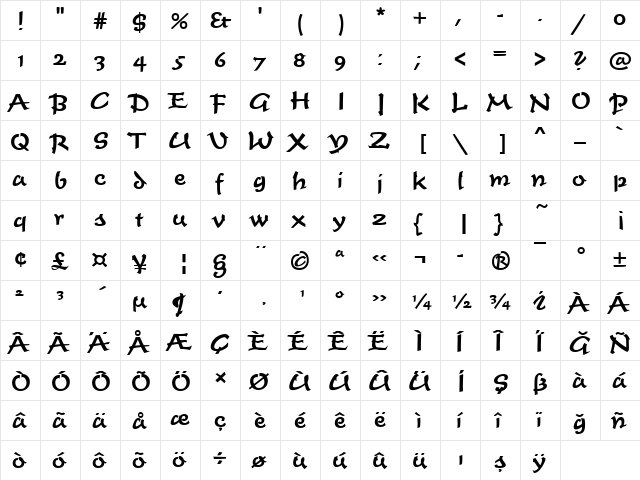
00826 Regular
Design Context for 00826 Typeface
00826 is a composed and adaptable typeface that performs quietly and consistently across a wide range of design contexts.